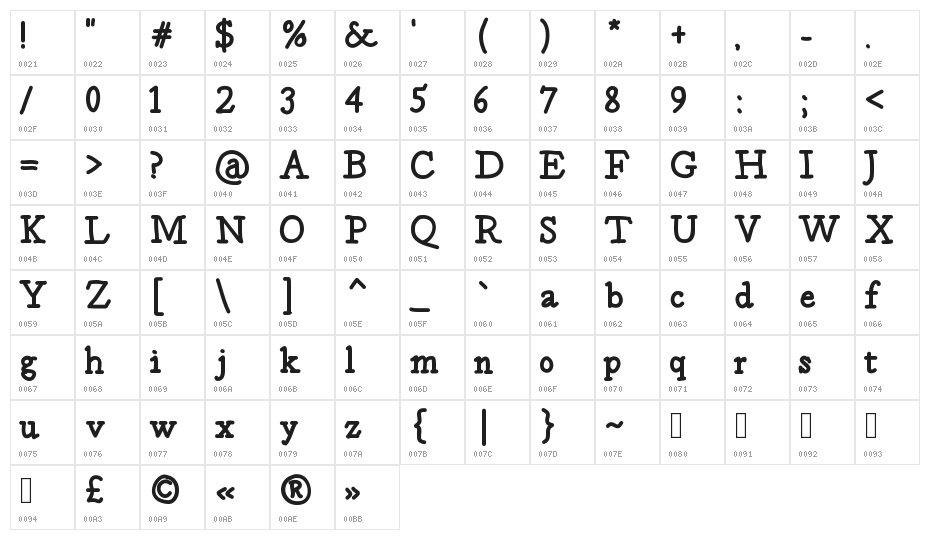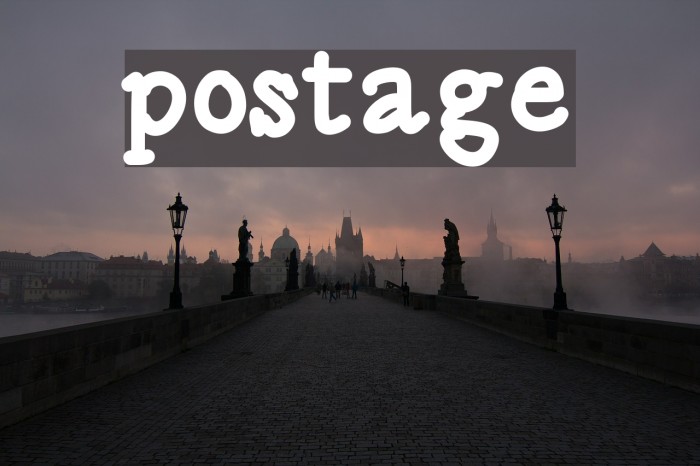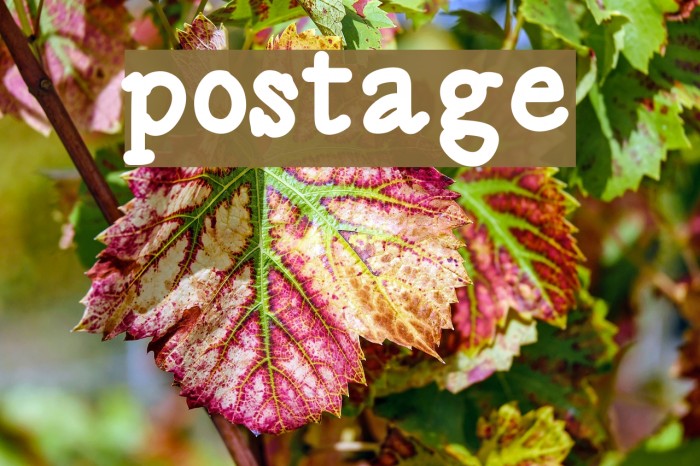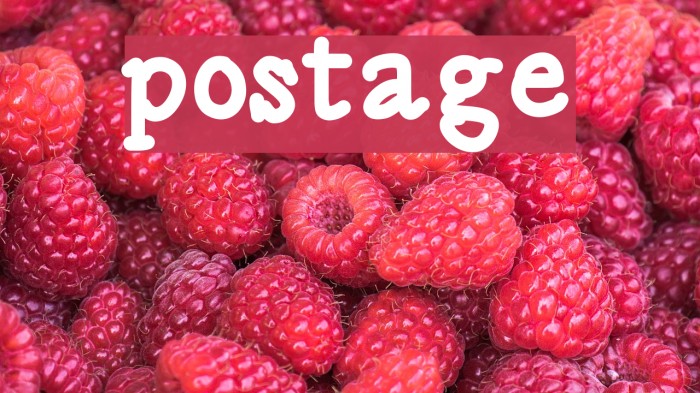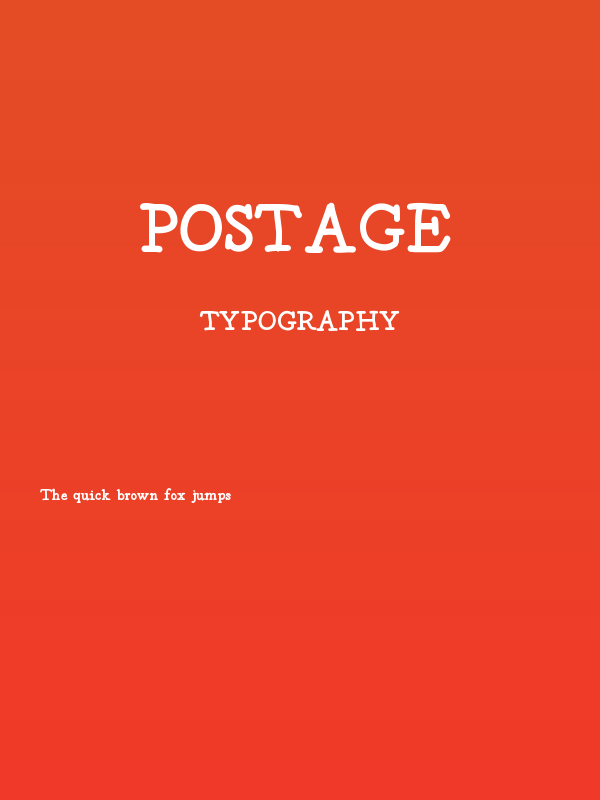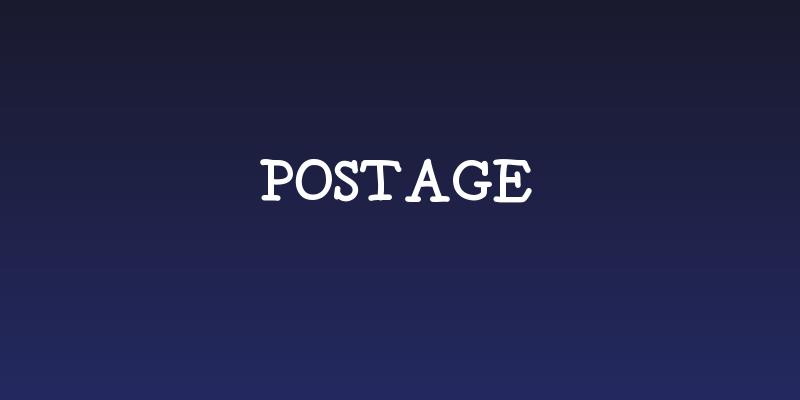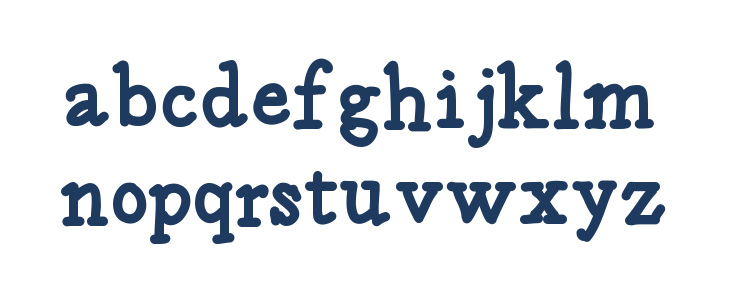
postage Font
postage Description
This font features a playful and bold design with rounded edges and a slightly uneven baseline, giving it a hand-drawn appearance. The uppercase letters are strong and prominent, while the lowercase letters maintain a consistent style with a touch of whimsy. The numbers are clear and bold, matching the overall style of the letters. Special characters are designed with the same playful touch, ensuring consistency throughout. This font's unique characteristics make it stand out, providing a friendly and approachable feel.
| Overall Style | Playful, Hand-drawn |
| Proposed Projects | Ideal for children's books, playful branding, greeting cards, and creative posters. |